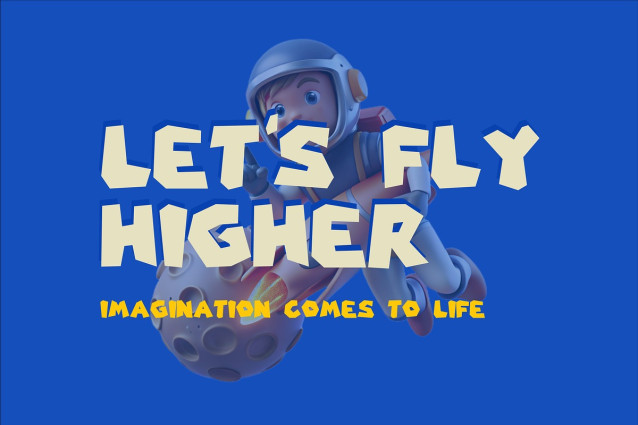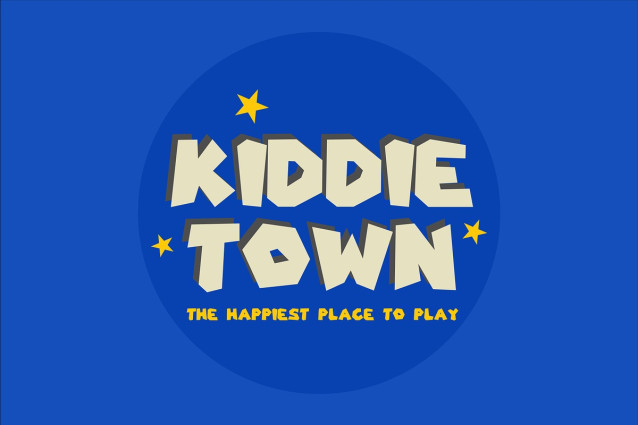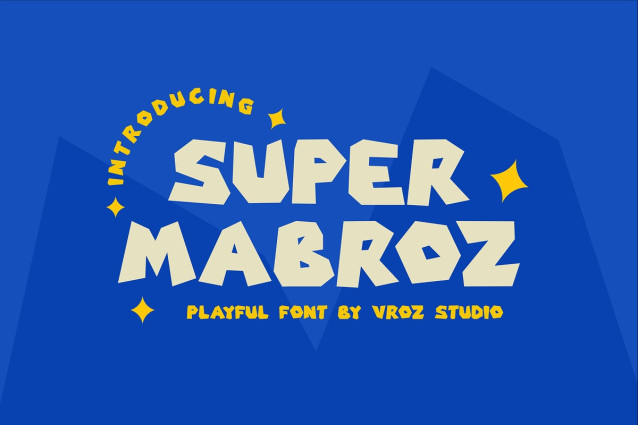
SuperMabroz Playful Font
SuperMabroz Playful Font is a loud, lively, and bold display font packed with fun and character! With thick strokes, quirky curves, and a playful cartoon vibe, this font is designed to grab attention and spark joy in every project.
Whether you’re creating eye-catching headlines, cheerful branding, colorful merchandise, or party invitations, SUPER MABROZ brings bold personality to your work. It’s a perfect fit for kids’ themes, games, YouTube content, comics, stickers, posters, and anything that needs a fun, standout touch.
The bubbly, expressive letterforms give off motion and energy, making your words feel bright and full of life.